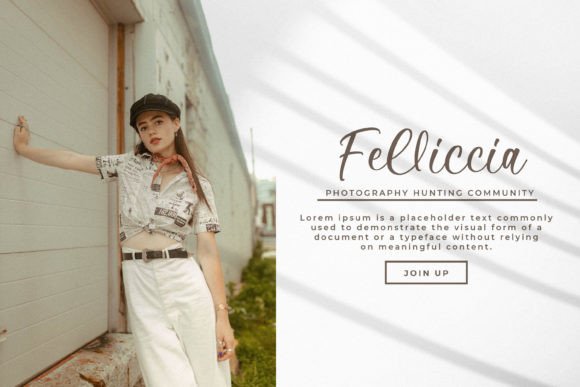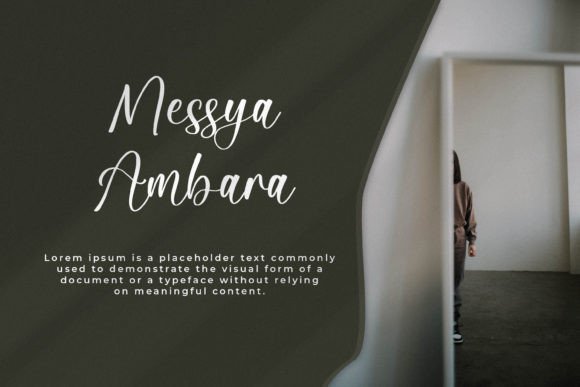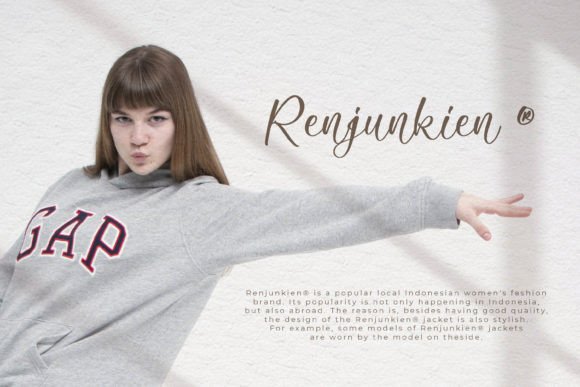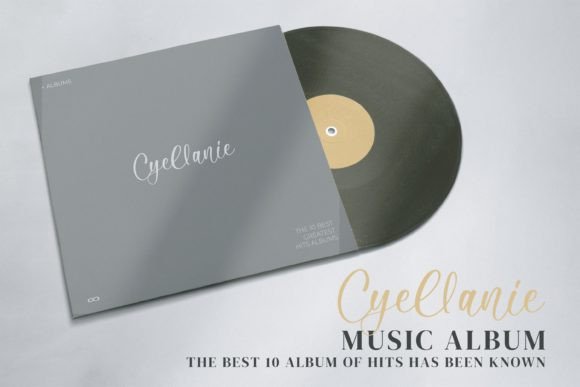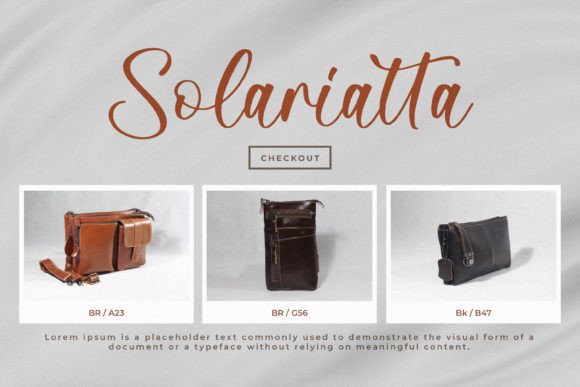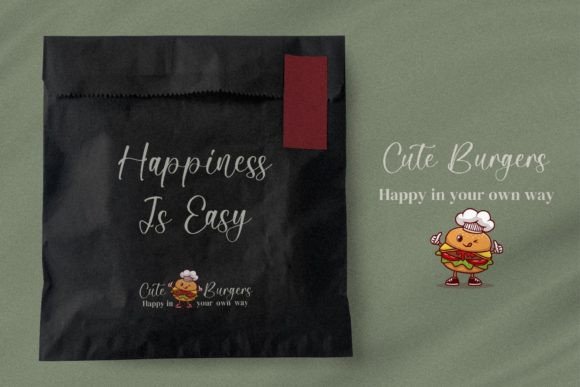
Introduction to Kimberly Sonara Font
Kimberly Sonara is a romantic and sweet calligraphy typeface with characters that dance along the baseline.
Key Features of Kimberly Sonara Font